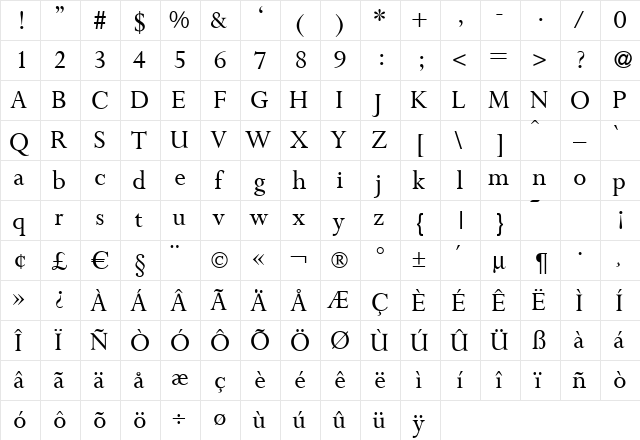
P700-Roman Regular
Design Context for P700-Roman Typeface
P700-Roman takes a measured approach to typography — its balanced proportions and neutral character make it a reliable workhorse for both digital and print work.